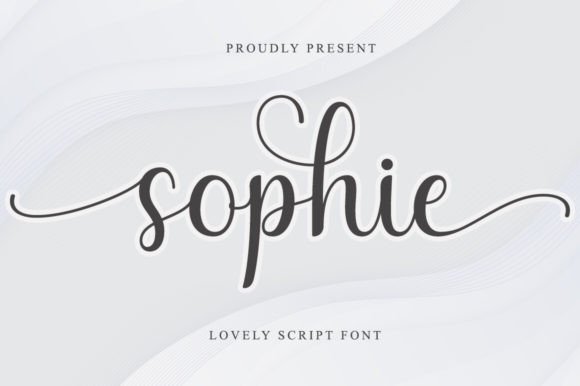
In a world where individuality blooms, Sophie Font emerges as a captivating dance of letters, a symphony of strokes that harmonizes heartfelt sentiments with a modern flair. Inspired by the allure of tattoos, Sophie Font is the prodigal daughter of urban chic and timeless elegance. This enchanting script is delicately poised between the bold strokes of self-expression and the soft whispers of femininity.
Sophie Font dances across your designs with an effortless grace, its inky tendrils weaving narratives of love, passion, and joy. Each letter is a stroke of genius, whispering secrets of a dreamer's heart. Its organic curves invite you into a realm of dreams, where words transform into living art.
Immerse yourself in the boundless versatility of Sophie Font. Its enchanting allure knows no bounds, effortlessly adapting to a myriad of creative pursuits. From the delicate charm of wedding invitations to the urban grit of tattoo designs, Sophie Font becomes a chameleon of style, molding itself to your imagination's whims.
With Sophie Font, you unlock the gateway to a creative renaissance. Its PUA encoding unleashes a realm of possibilities, granting you access to a treasure trove of glyphs and swashes that ignite your artistic soul. Unleash your inner artist and let your imagination run wild as you craft designs that captivate and inspire.
Sophie Font is more than just a collection of letters; it's an invitation to let your spirit soar, to embrace the unpredictable beauty of self-expression. With every stroke, every word you create, Sophie Font transforms your designs into a symphony of visual artistry, leaving an indelible mark on the hearts of those who behold it.
Embrace the allure of Sophie Font, and embark on a creative odyssey where your imagination knows no limits. Let your soul dance to the rhythm of its unique melody, and watch as your creations transform into masterpieces that speak volumes about your artistic prowess. Dive into the depths of Sophie Font's enchanting world and let your creativity flourish.